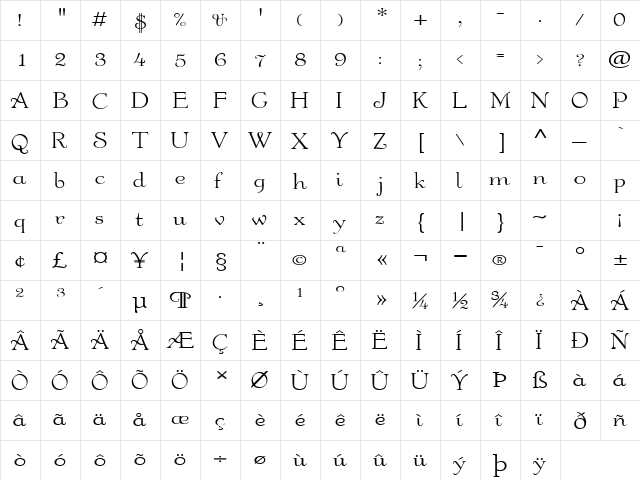
Fanciful-Extended Normal
Design Context for Fanciful-Extended Typeface
Fanciful-Extended offers clean, dependable letterforms without strong stylistic allegiance, making it a practical choice for designers who need flexibility.
Pro Tip: Use Fanciful-Extended in both headline and body roles to test its range before committing to a single application.